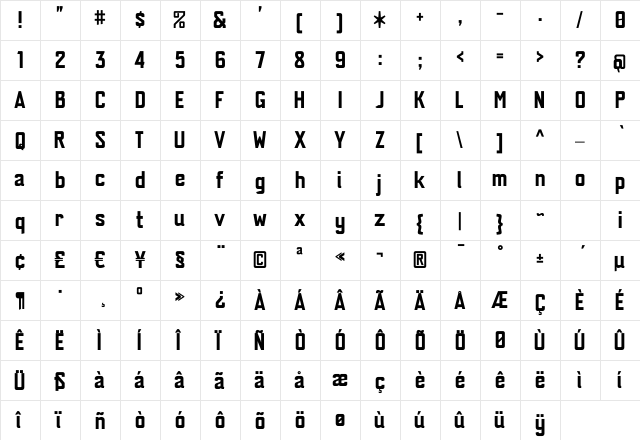
PaggioRegular Regular
Design Context for PaggioRegular Typeface
PaggioRegular takes a measured approach to typography — its balanced proportions and neutral character make it a reliable workhorse for both digital and print work.